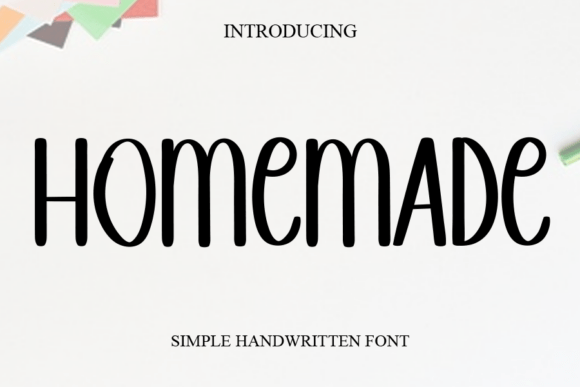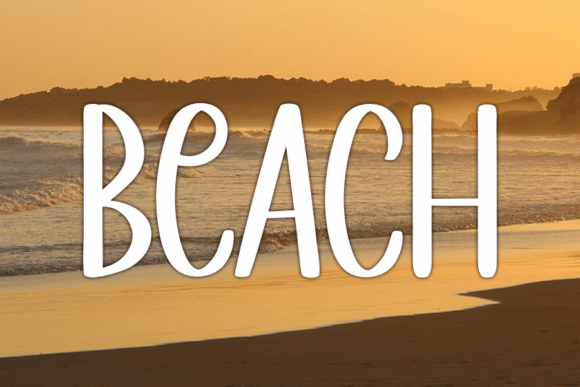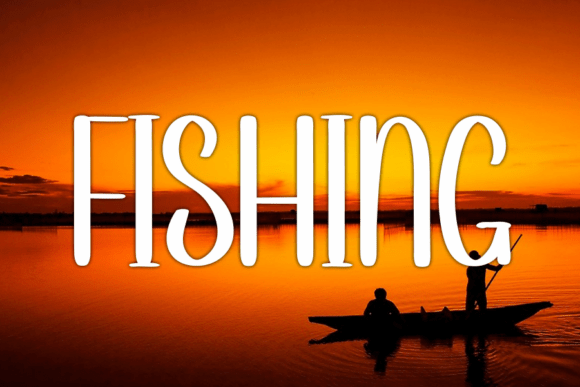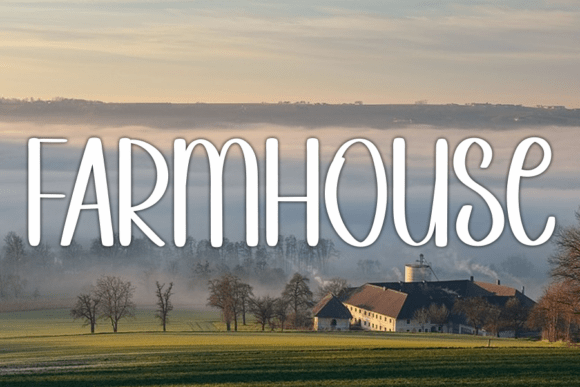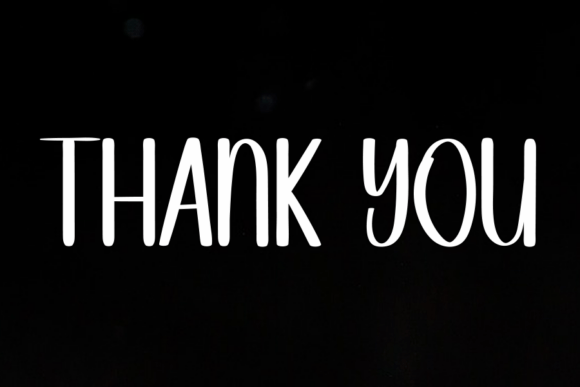
The Simple Charm of the Homemade Font
Have you ever been working on a project, and suddenly you’re stuck? The words just won’t come together, and the design feels bland and uninspired? That’s when I find myself scribbling down notes in a notebook, experimenting with different handwriting styles, and searching for the perfect font to bring my idea to life.
That’s where the Homemade Font comes in – a simple, yet effective handwritten font that’s perfect for adding a touch of personality to your next project. Whether you’re designing a greeting card, creating a social media post, or crafting a headline, this versatile font is guaranteed to add a natural and effortless feel to your design.
For designers, the Homemade Font is a valuable tool in their toolkit. Its simplicity and charm make it easy to use, and its wide range of applications mean it can be used in a variety of contexts. Whether you’re a seasoned pro or just starting out, the Homemade Font is sure to become a favorite – and a great addition to your design arsenal.
Key Features of “Homemade Font”
- Unique Character Set: Homemade Font features a unique character set, including alternate glyphs, swashes, and ligatures, which can be used to add personality and flair to text.
- Customizable: The font includes a range of OpenType features, such as stylistic sets, positional forms, and contextual alternates, allowing users to customize the font to suit their needs.
- Multi-Lingual Support: Homemade Font includes support for multiple languages, including Latin, Cyrillic, and Greek scripts, making it a versatile choice for designers and typographers.
- Scalable: The font is designed to be scalable, meaning it can be used at a range of sizes and resolutions without losing its clarity or integrity.
Design Review: Homemade Font
First off, I have to say that I was drawn to the Homemade Font’s quirky, hand-drawn aesthetic. The font has a unique charm to it, ✨ especially in its imperfections. It’s the kind of font that would add a touch of personality to a project.
- Quirky, hand-drawn aesthetic that adds a touch of personality to a project
- Impressive range of characters and symbols, including punctuation and numbers
- Great for titles, headings, or any text that needs a bit of flair
- ⚠️ Limited font sizes: The font’s uniqueness starts to get lost at larger font sizes, making it less legible.
- ⚠️ Limited language support: The font is currently only available in Latin-based languages, which may limit its usability for certain projects.
- ⚠️ Not ideal for large blocks of text: The font’s imperfections can make it difficult to read when used extensively.
Overall, I think the Homemade Font is a great choice for projects that need a bit of whimsy and personality. While it has some limitations, it’s a unique and charming font that can add a lot to a design. Just be mindful of its limitations and use it judiciously.